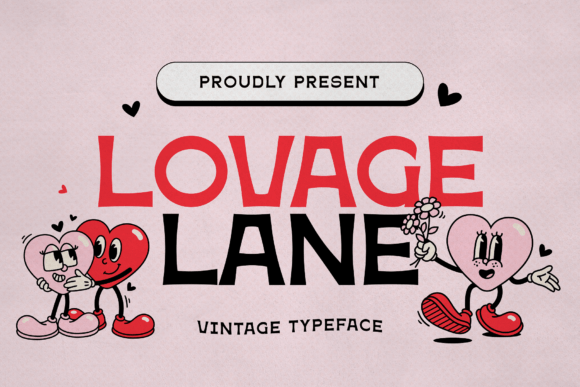
Journey back to a time of captivating cartoons and colorful characters with Lovage Lane, a font that breathes life into the past. This display font, masterfully crafted by the talented designers at HipFonts, is a love letter to the retro era, capturing the magic and charm of classic animations.
Lovage Lane is not just a font; it's a gateway to a world of nostalgia, where every letter dances with personality and every word tells a story. The font's playful curves and robust character evoke a sense of comfort and familiarity, reminding us of those cherished Saturday mornings spent in front of the TV, immersed in the adventures of our favorite cartoon heroes.
With Lovage Lane, you can bring that same charm and whimsy into your own creative endeavors. Design logos that pop, create eye-catching social media posts, or craft invitations that transport your guests to a bygone era. The possibilities are endless, limited only by your imagination.
As a display font, Lovage Lane exudes confidence and charisma, making it the perfect choice for branding and marketing. It's a font that commands attention, leaving a lasting impression on your audience. Whether you're a small business owner, a creative professional, or simply someone who appreciates the charm of the past, Lovage Lane is the font for you.